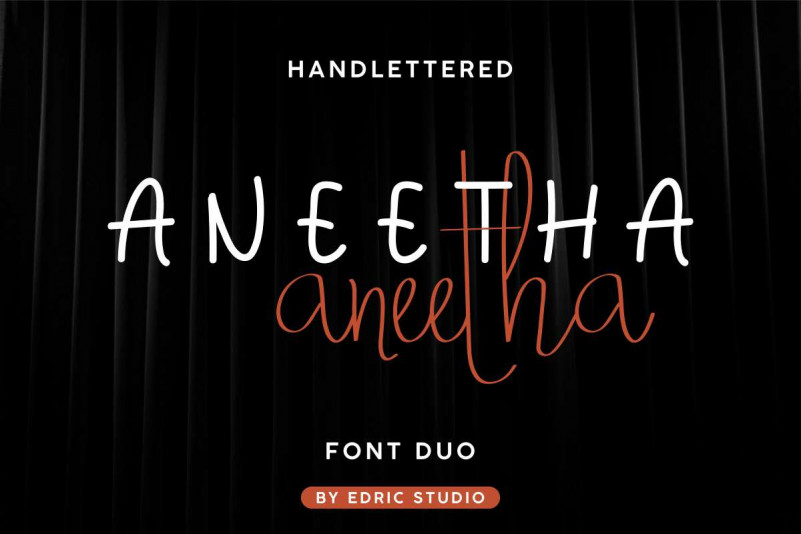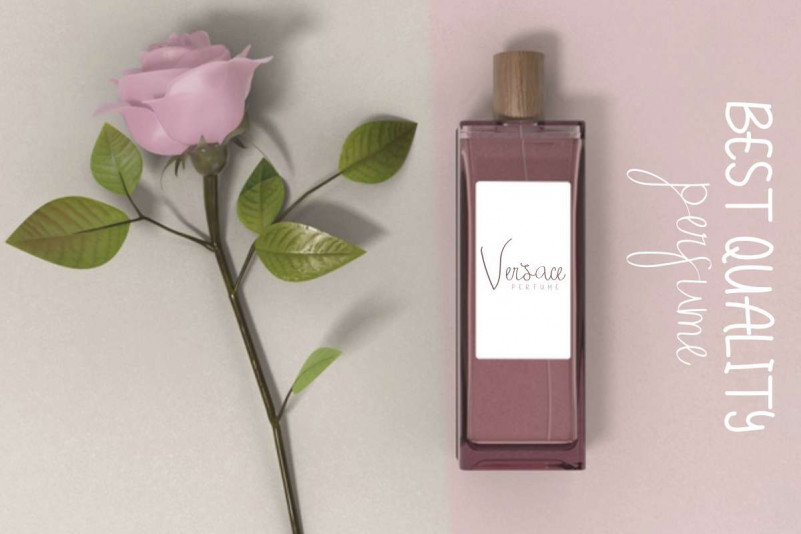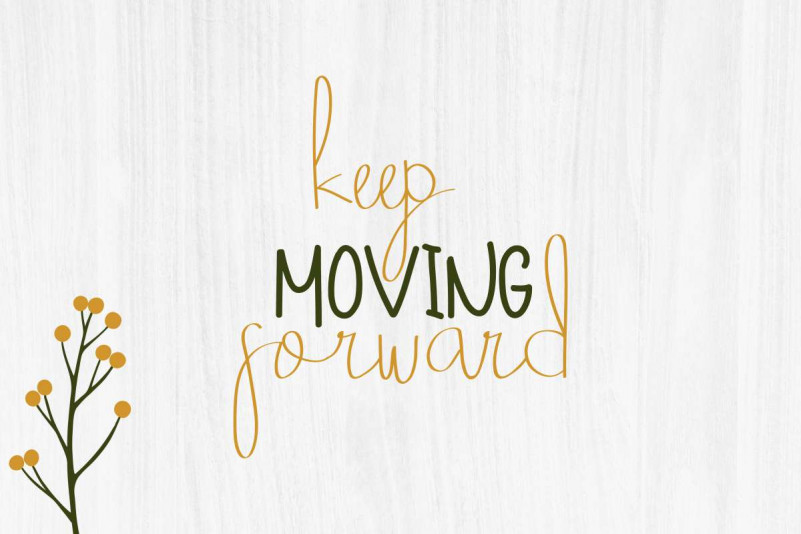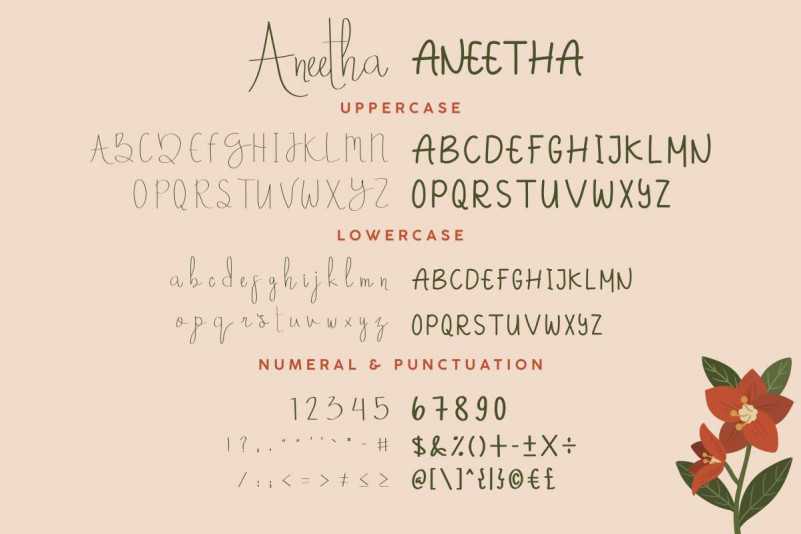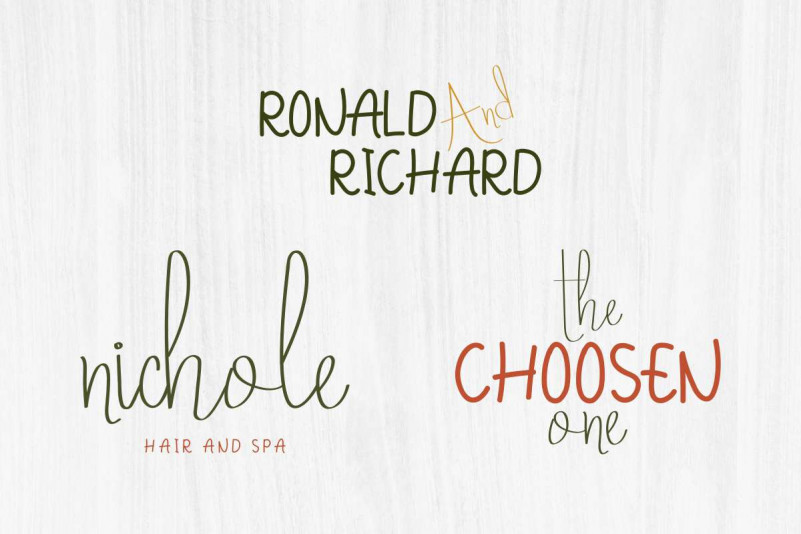
Aneetha Font Duo
Hola Everyone!! This is us again. Edric Studio. We are presenting to you : Aneetha Font Duo . This is a font duo, contains two different styles : Sans and Script. All of Aneetha Font Duo styles will be awesome for any designs works. Works well for many industry clients : Music, law firm, lawyer, makeup artist, dentist, wedding, finance, etc